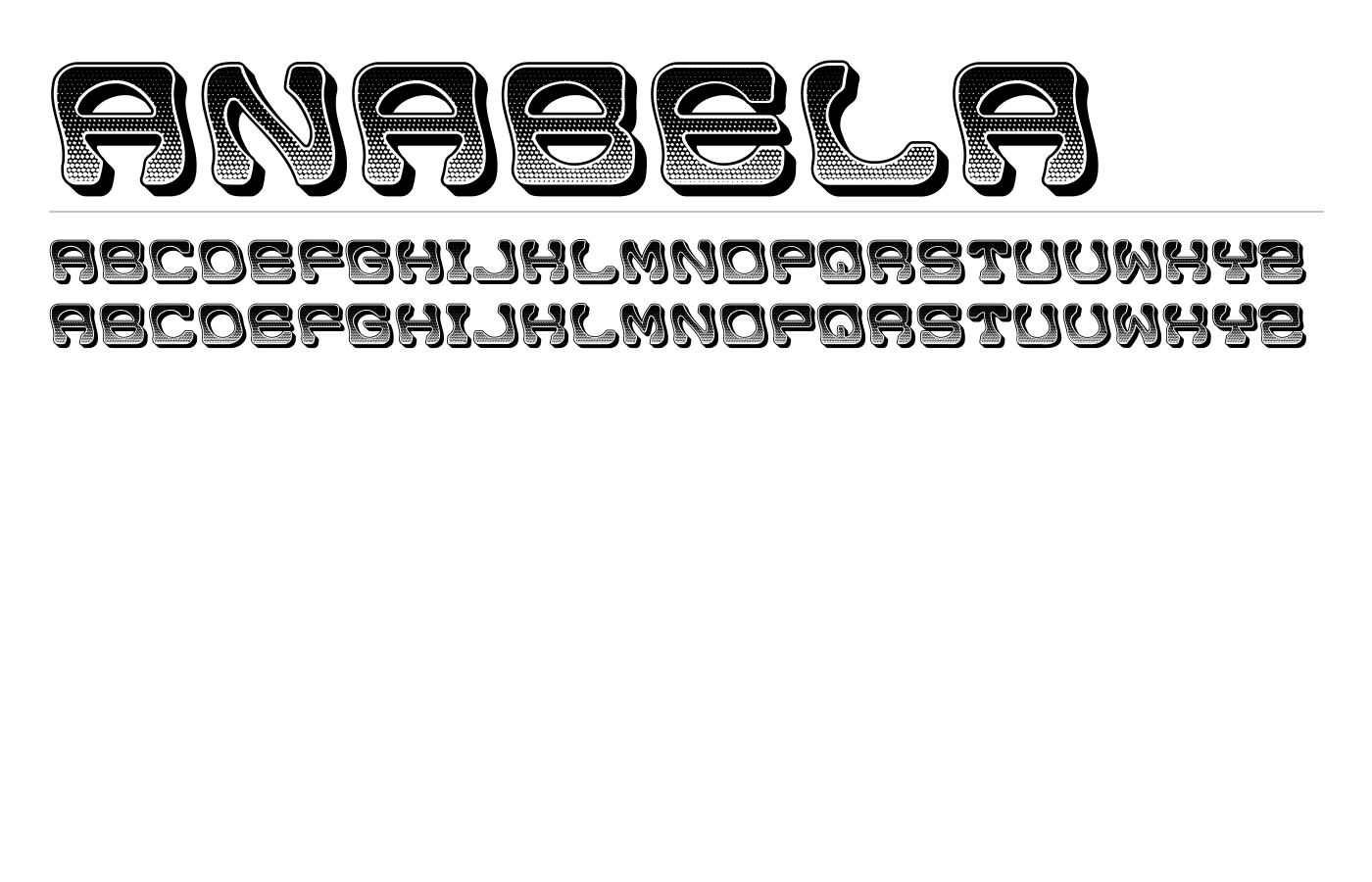
Anabela is a bold, decorative sans serif font with a playful and retro vibe, characterized by its thick, rounded letterforms and unique dotted gradient shading that adds depth and texture. Its distinctive style makes it ideal for eye-catching headlines, logos, and poster designs where a fun and vintage feel is desired. This font works best in creative projects seeking a lively and nostalgic touch rather than in body text or formal settings.
Anabela Font
About Anabela Font